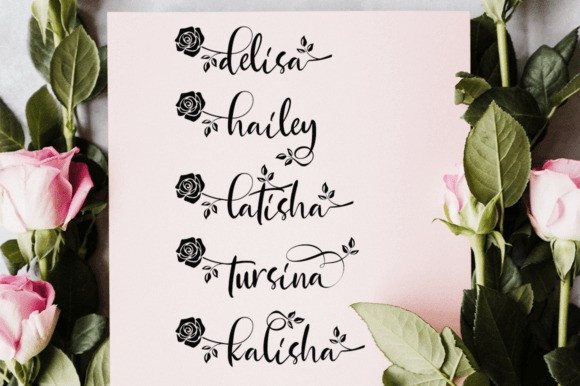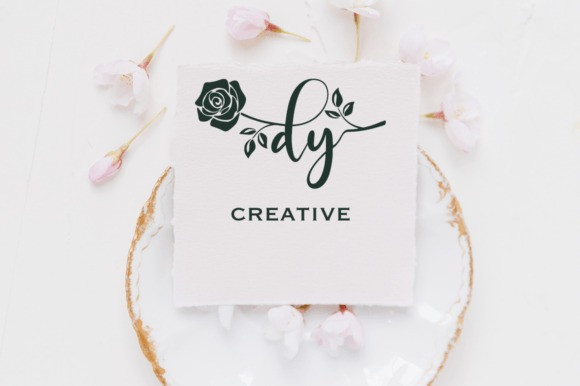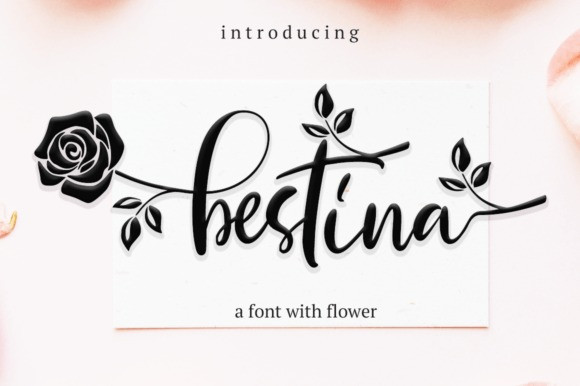
Bestina Font
Bestina Script Font is a sweet and stylish calligraphic script font. It looks stunning on wedding invitations, thank you cards, quotes, greeting cards, logos, business cards, and every other design which needs a lovely, romantic touch.